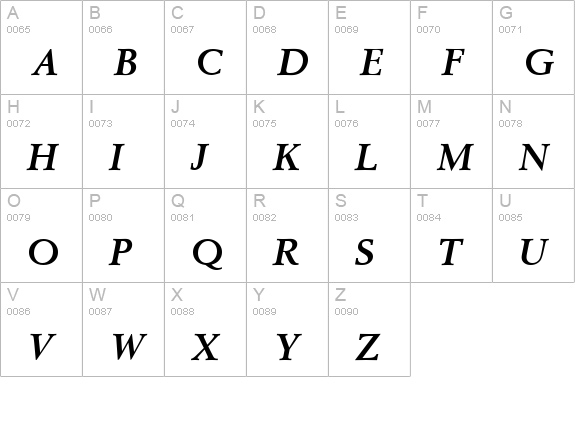
Berling Antiqua Bold Italic is a strong, high-contrast, italic variant in the Berling typeface family \xE2\x80\x94 well suited to headlines, attention-grabbing titles, and strong calls-to-action.
Berling Antiqua Bold Italic is a striking and elegant font that exudes sophistication and style. Its bold, slanted characters command attention and convey a sense of confidence and authority. The intricate details of the italicized letters add a touch of flair and personality to any design project. What sets Berling Antiqua Bold Italic apart is not only its timeless appeal but also the fact that it is available for free download at FontsMarket.com. This means that anyone can access this high-quality font without having to worry about any costs. Whether you are working on a professional project or simply looking to enhance your personal creations, Berling Antiqua Bold Italic is a versatile and reliable option that is sure to elevate your designs. Download it today and experience the beauty and versatility of this exceptional font.